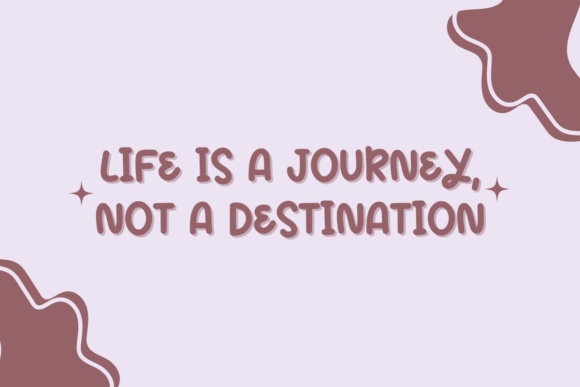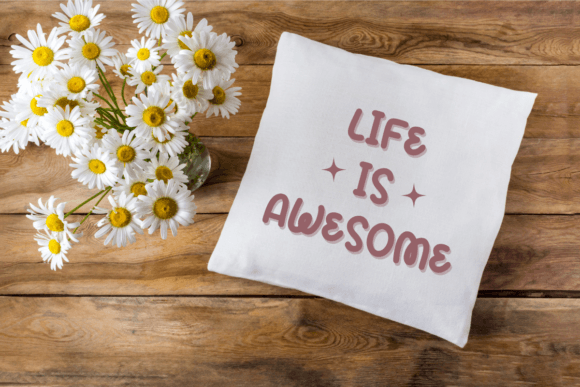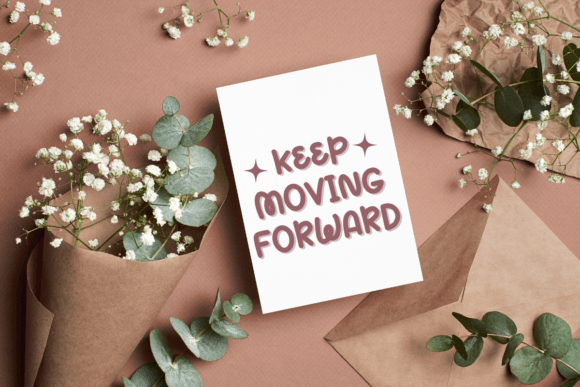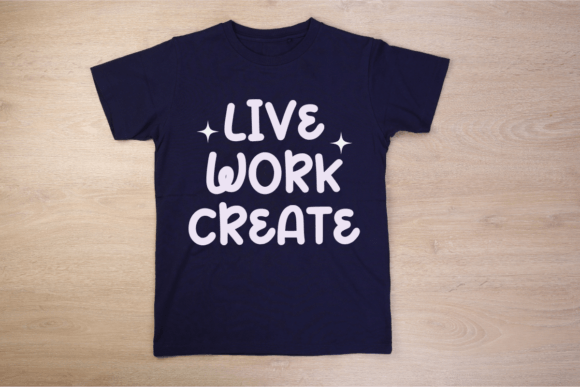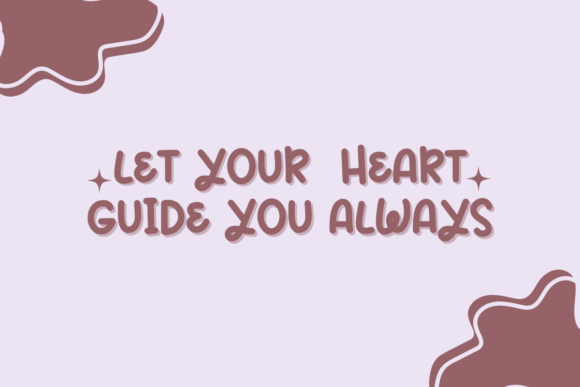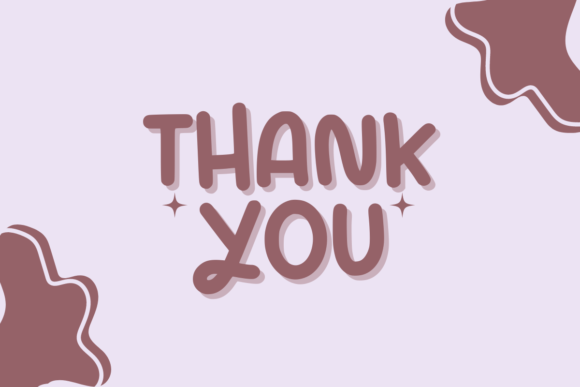
Introduction to Madison Kids Font
Madison Kids is a cute and playful handwritten font.
Whatever the topic, this font is perfect for your creative craft needs .
Key Features of Madison Kids Font